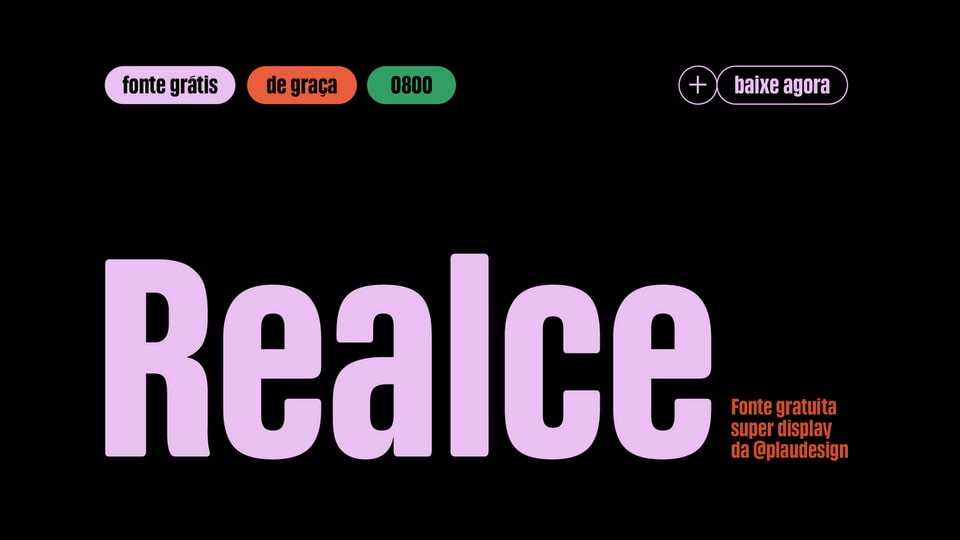
Realce Font › Fontesk – Fonte Grátis
Download Realce font, a dynamic sans-serif typeface designed specifically for large titles, boasting a single weight that offers exceptional versatility in various design contexts. Realce font is crafted to deliver maximum impact and readability, making it ideal for headline usage across a wide range of projects.